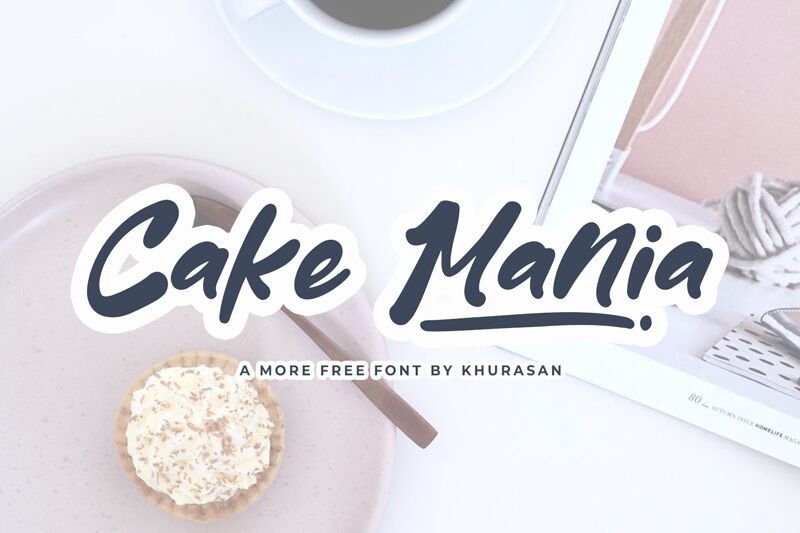
Cake Mania
Cake Mania, a delightful creation by renowned font designer Khurasan, is a smooth brush font with a semi-bold weight. This versatile typeface is perfect for adding a touch of elegance to various projects. Its smooth strokes and artistic flair make it ideal for wedding invitations, greeting cards, and feminine branding. The semi-bold font effortlessly balances sophistication and playfulness, making it suitable for food blogs, bakery logos, and confectionery packaging. With Cake Mania, your designs will exude charm and creativity that are sure to captivate your audience's attention.